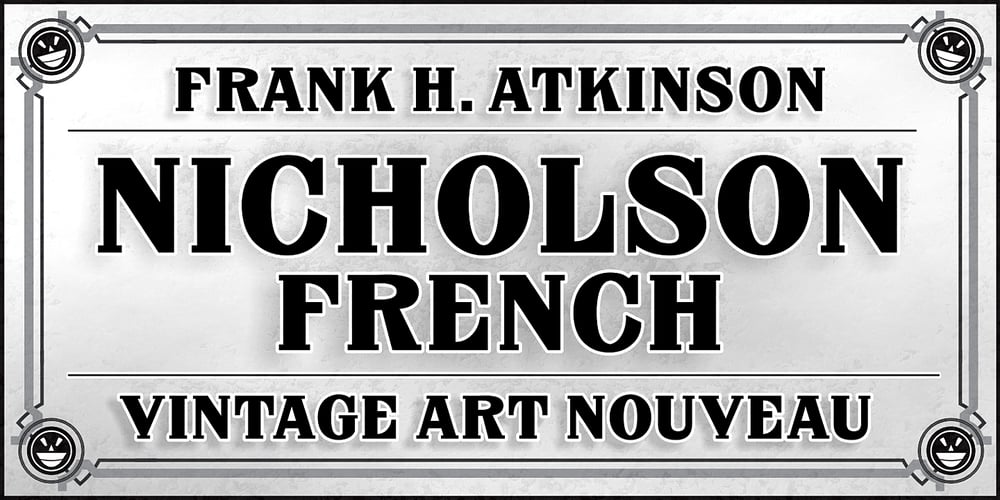
FHA Nicholson French Font Family was designed by Michael Gene Adkins and published by The Fontry. FHA Nicholson French contains 1 styles and family package options. An Art Nouveau alphabet that has stood the test of time, Nicholson French, by legendary sign-painter Frank H. Atkinson, is over 100 years old and going strong. In modern typographic trim, it comes with OpenType feature replacement options and multi-language support, from standard Latin-1 to Latin Extended-A, Greek and Cyrillic.